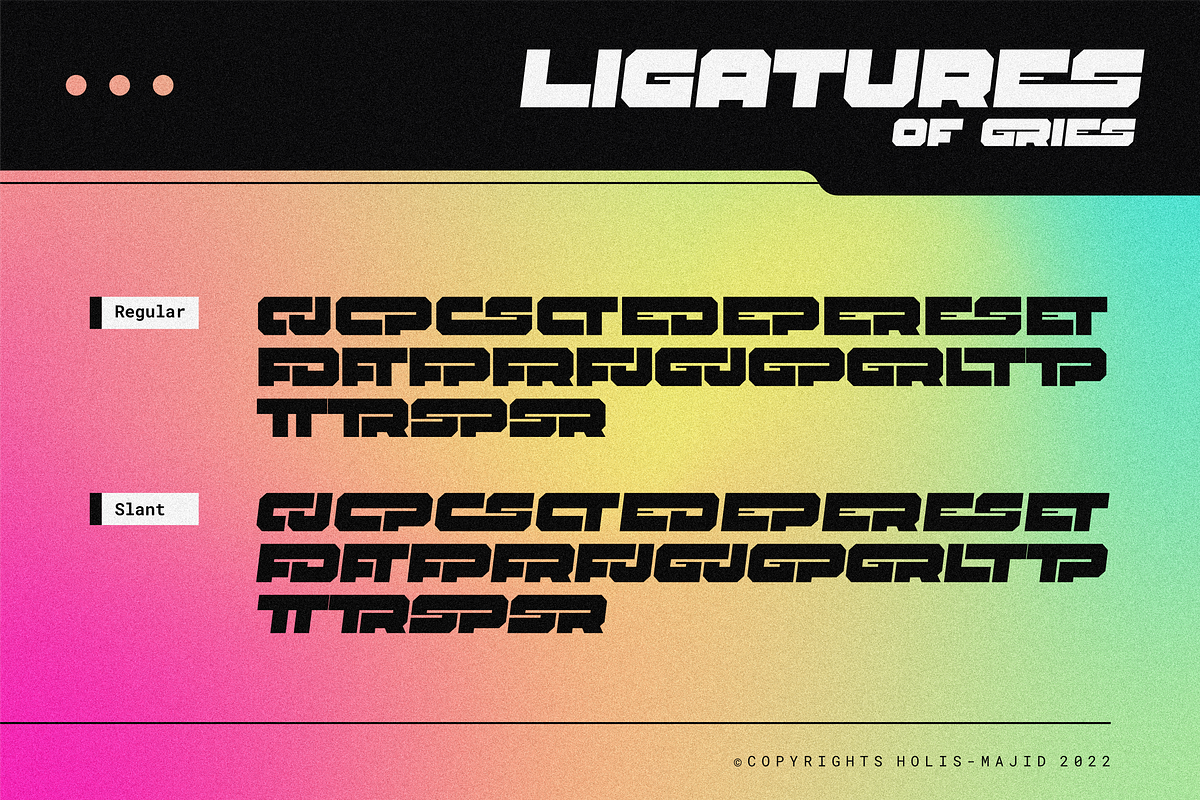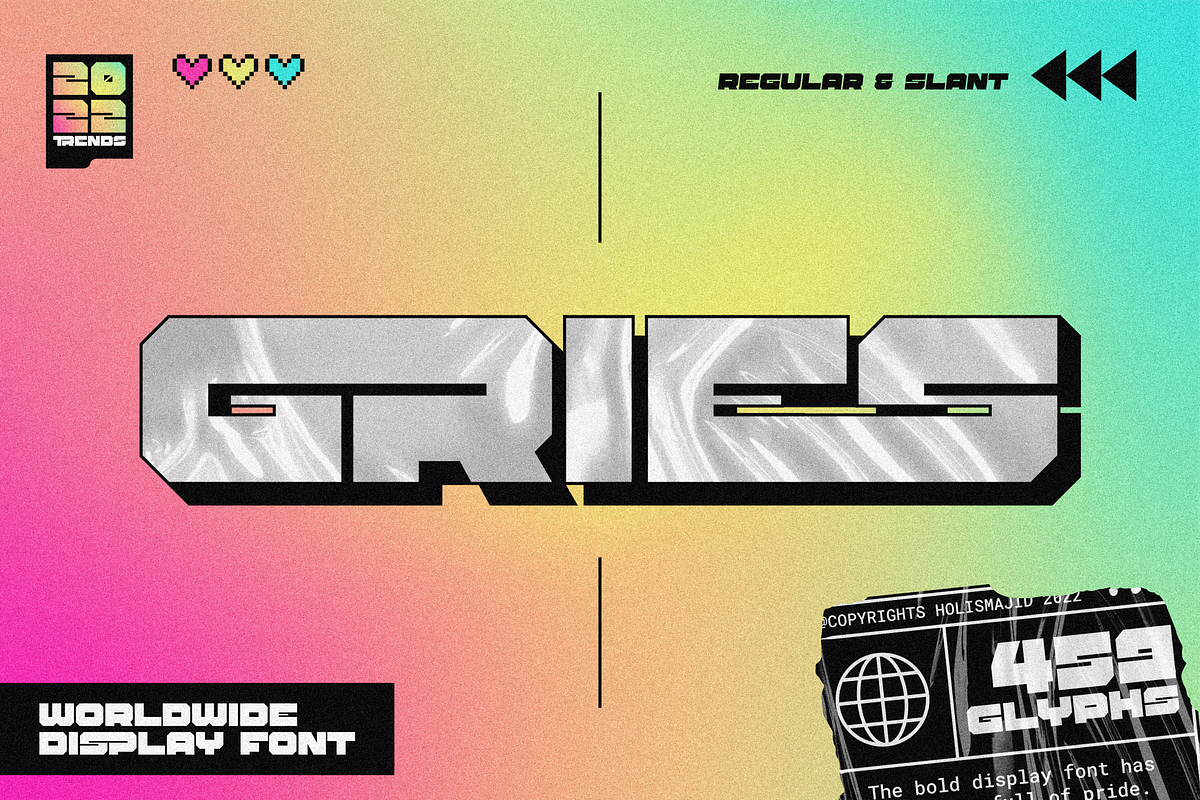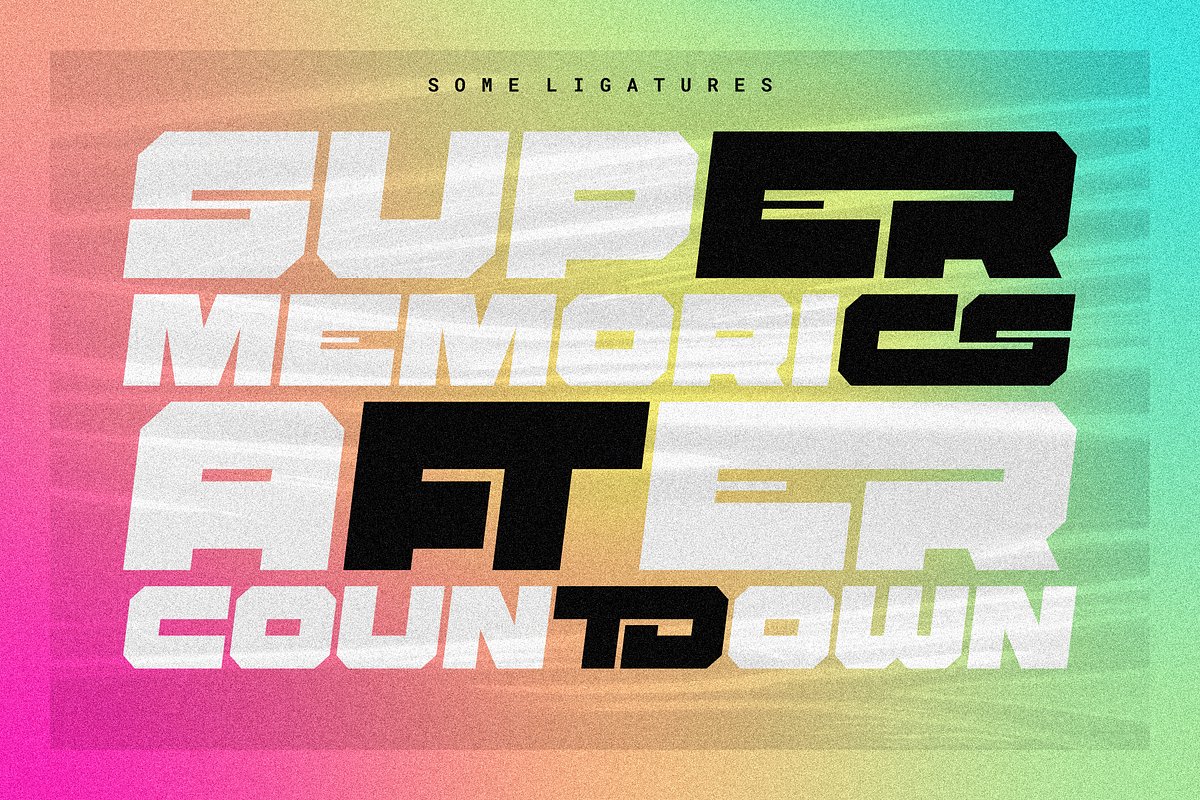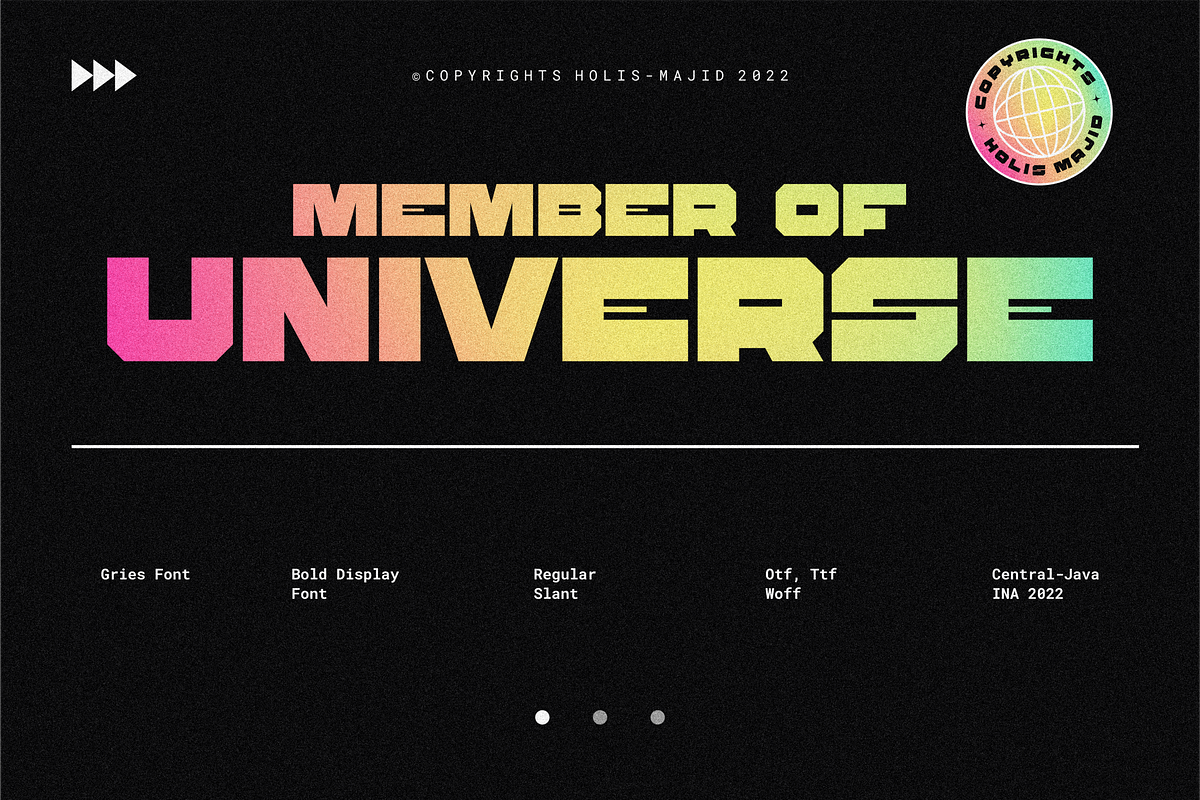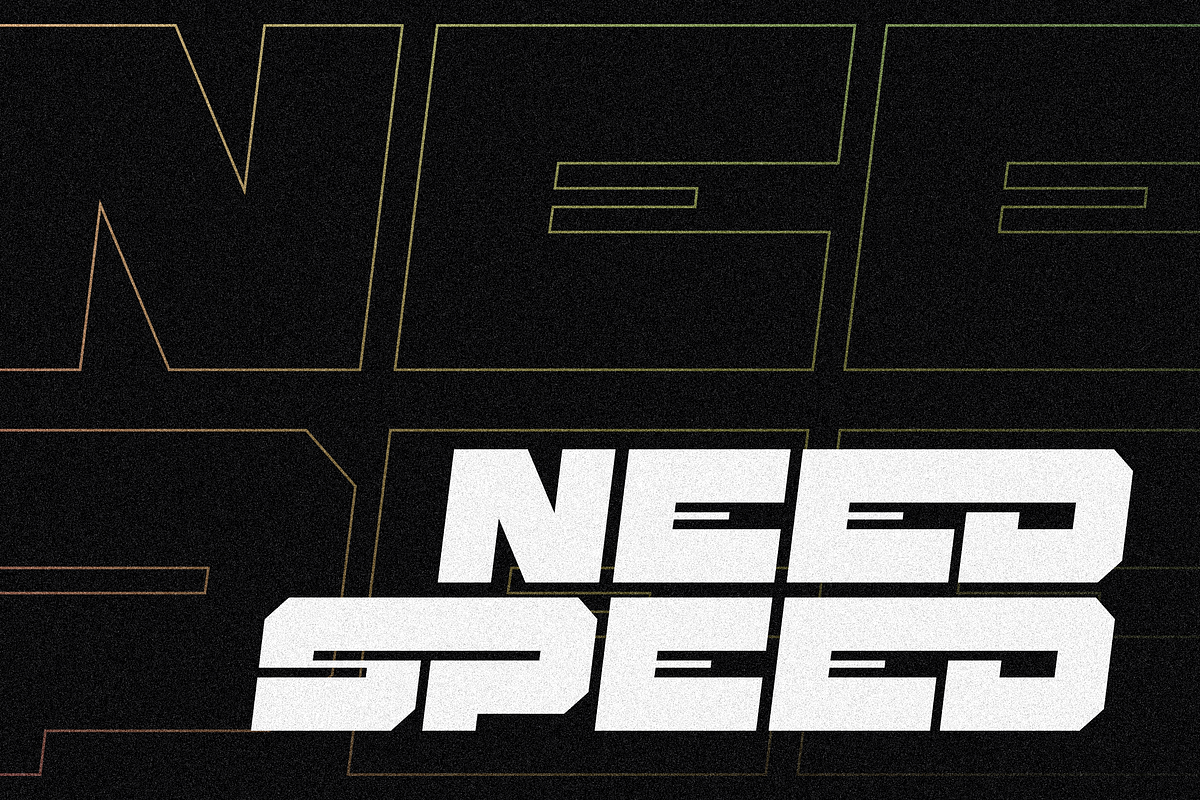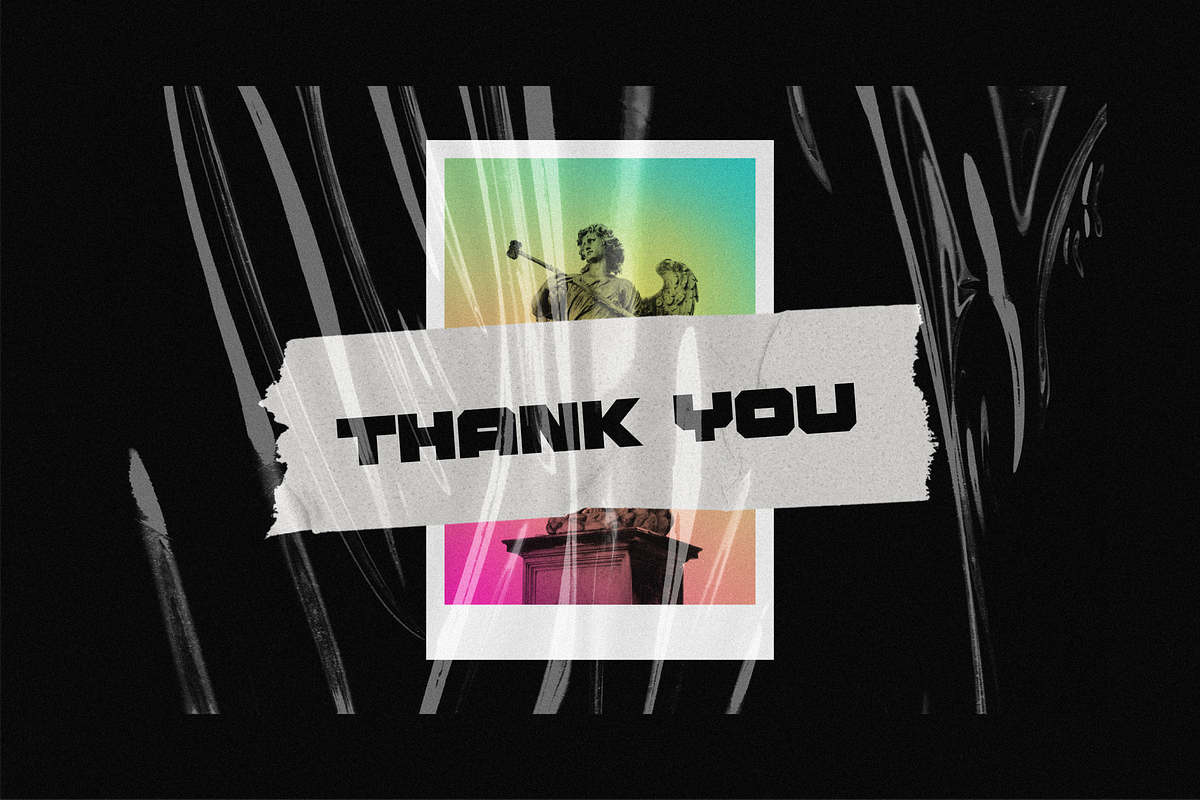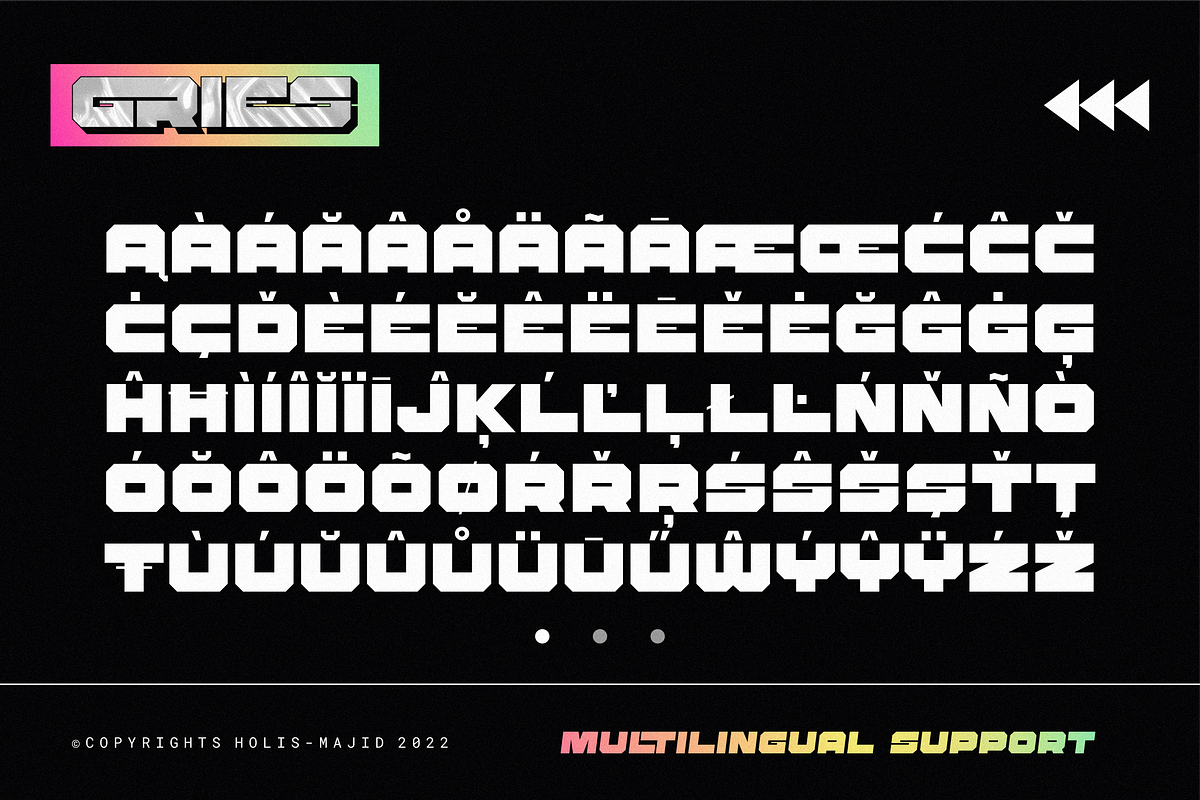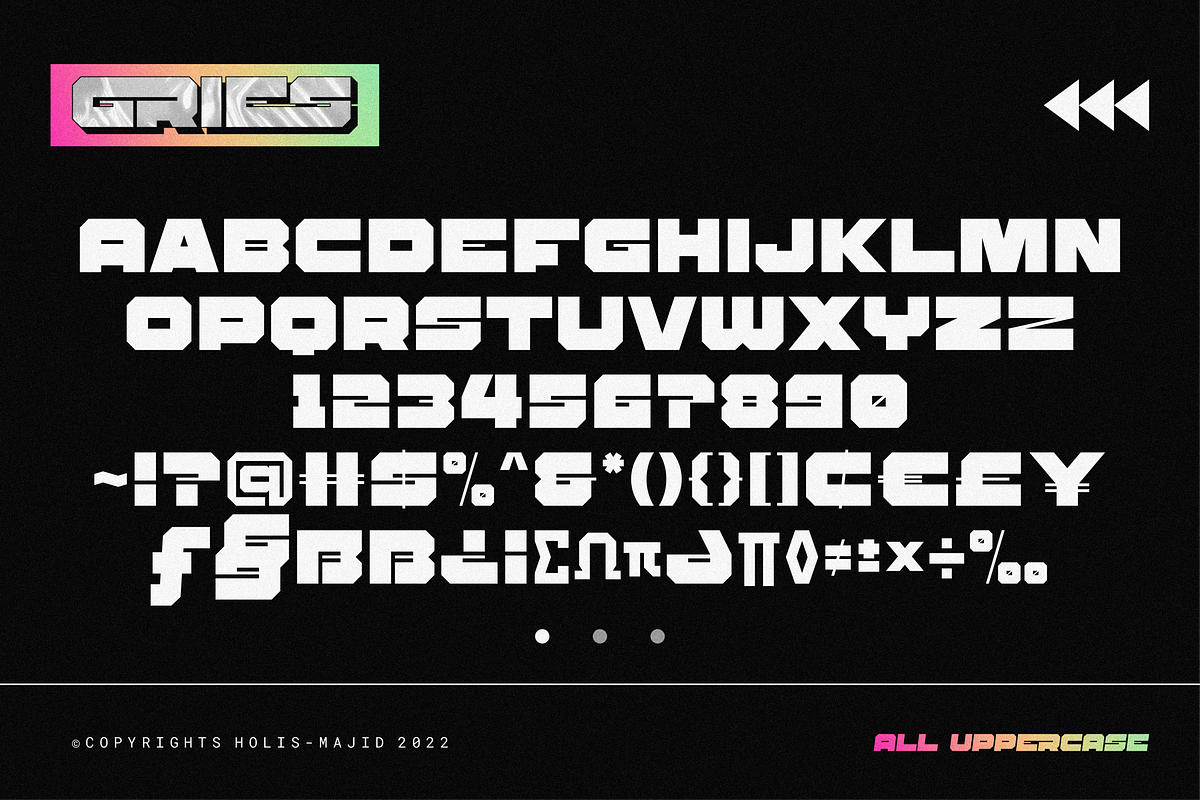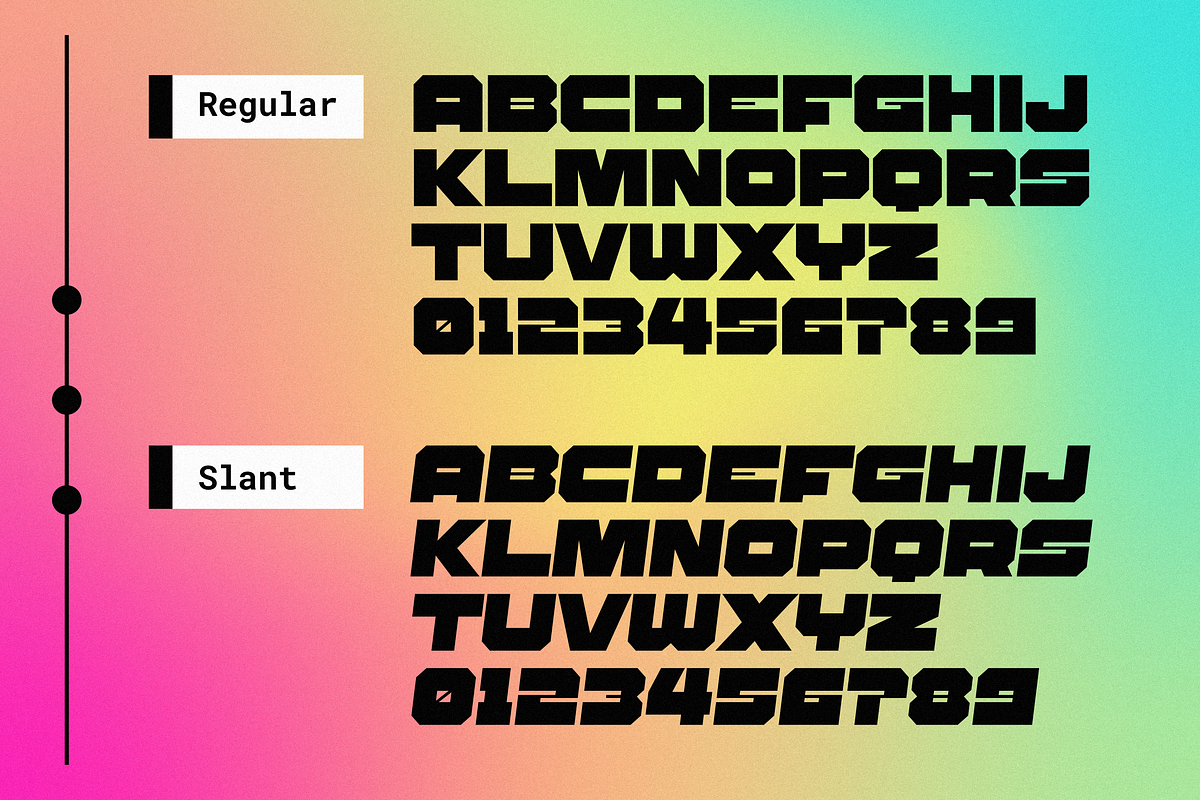
Gries Bold
Gries Bold is a bold font with a technology and sport concept with an uppercase character, equipped with several ligatures. The font is suitable for logo designs, movie posters or any poster, and any design that requires a tech or sport touch.
- All Uppercase
- Numeral
- Punctuation and Symbol